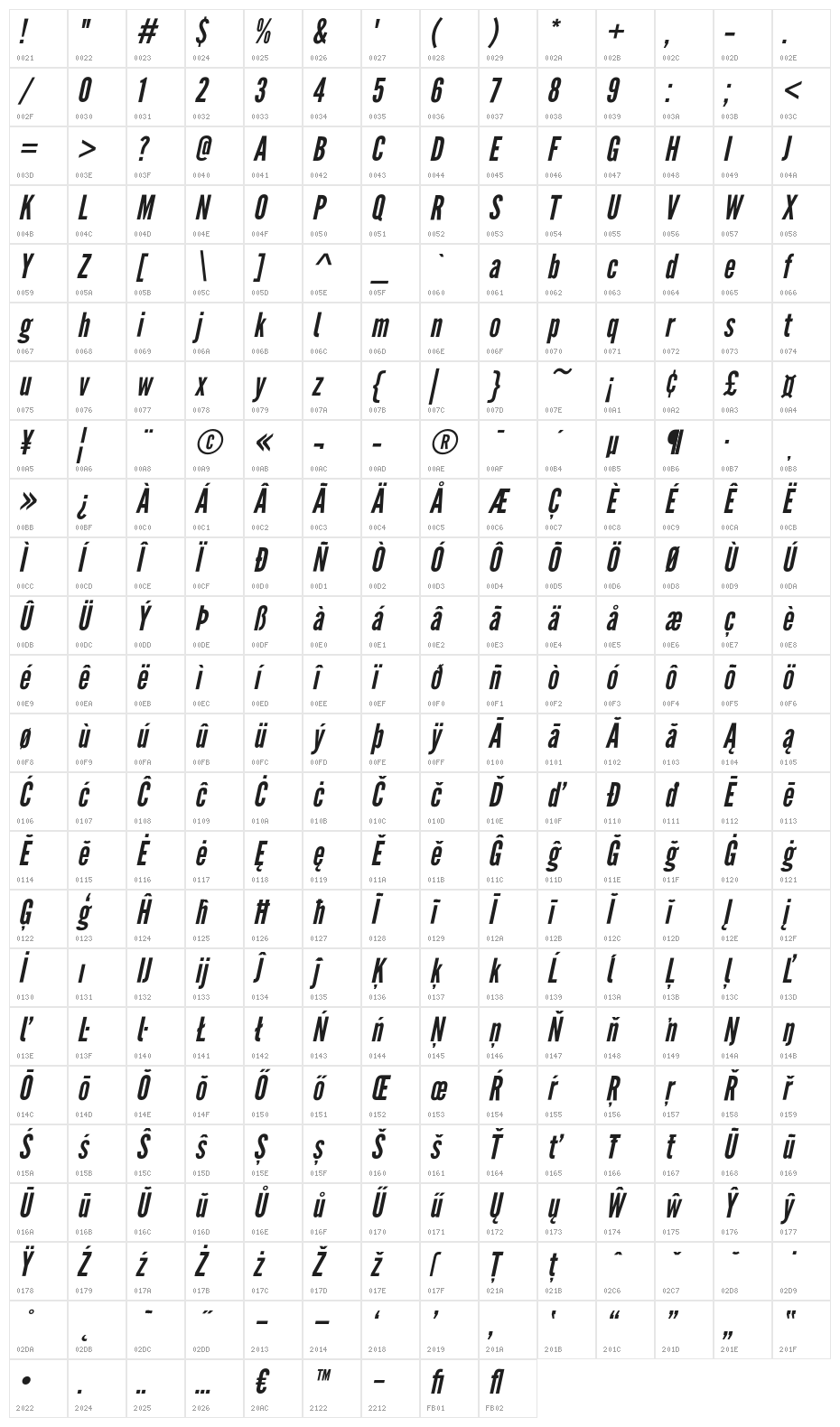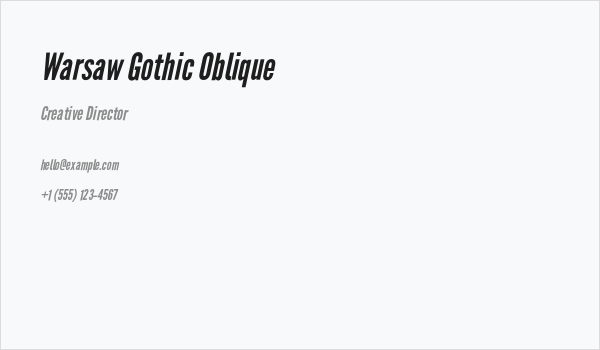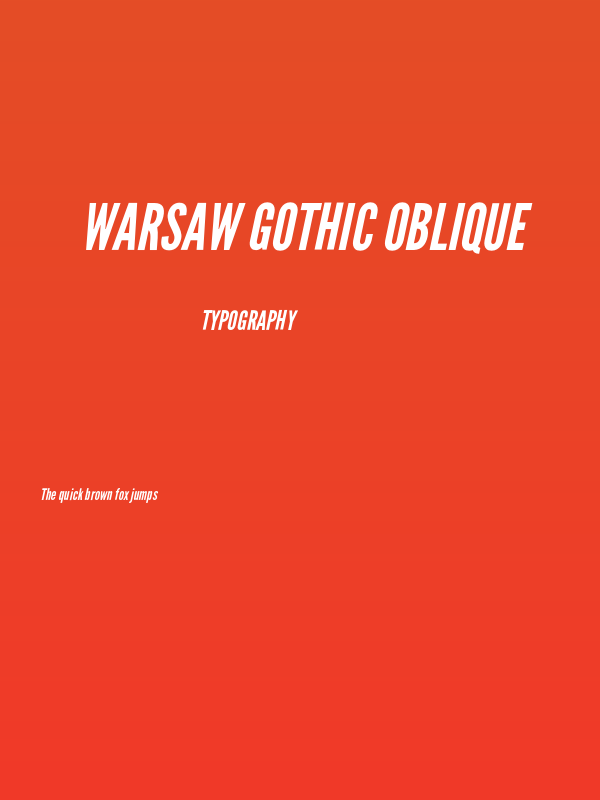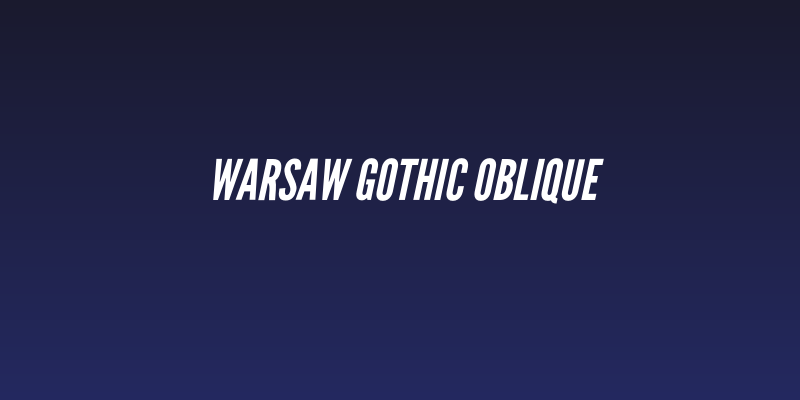
Warsaw Gothic Oblique Font
Warsaw Gothic Oblique Description
This font features a bold and dynamic style with a distinct oblique slant, giving it a sense of motion and urgency. The characters are tightly spaced, enhancing its compact and impactful appearance. The strokes are thick and consistent, providing a strong visual presence. Its uppercase and lowercase letters maintain a uniform height, contributing to a cohesive look. The numerals and special characters are designed with the same boldness, ensuring readability and emphasis. This font is suitable for projects that require a modern and assertive aesthetic.
| Proposed Projects | Ideal for headlines, posters, branding, and advertising where a bold statement is needed. |